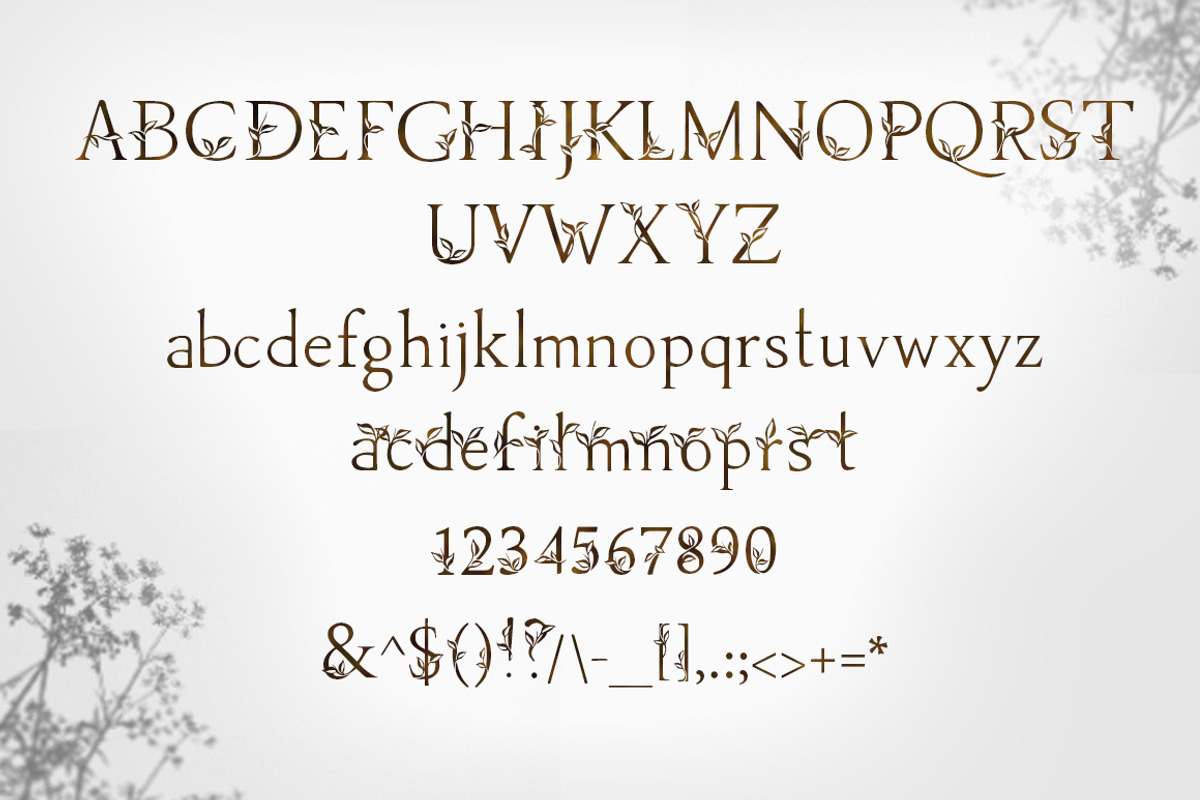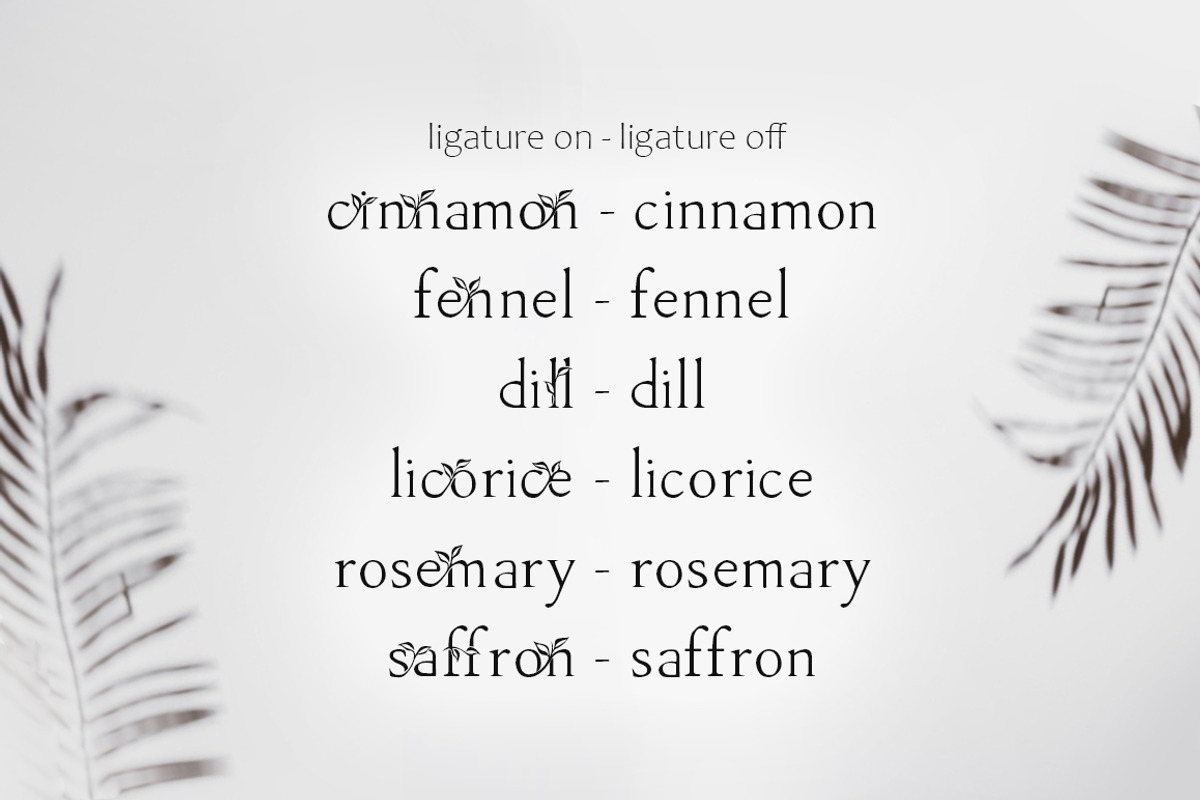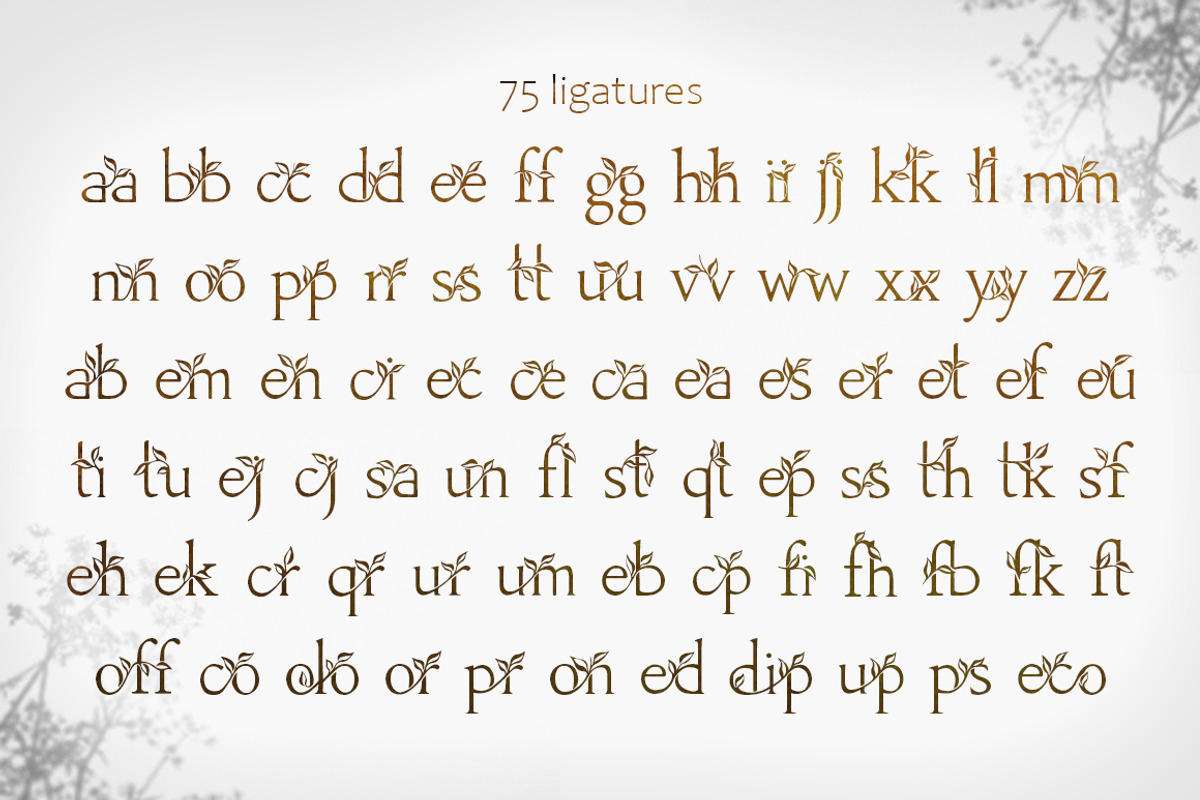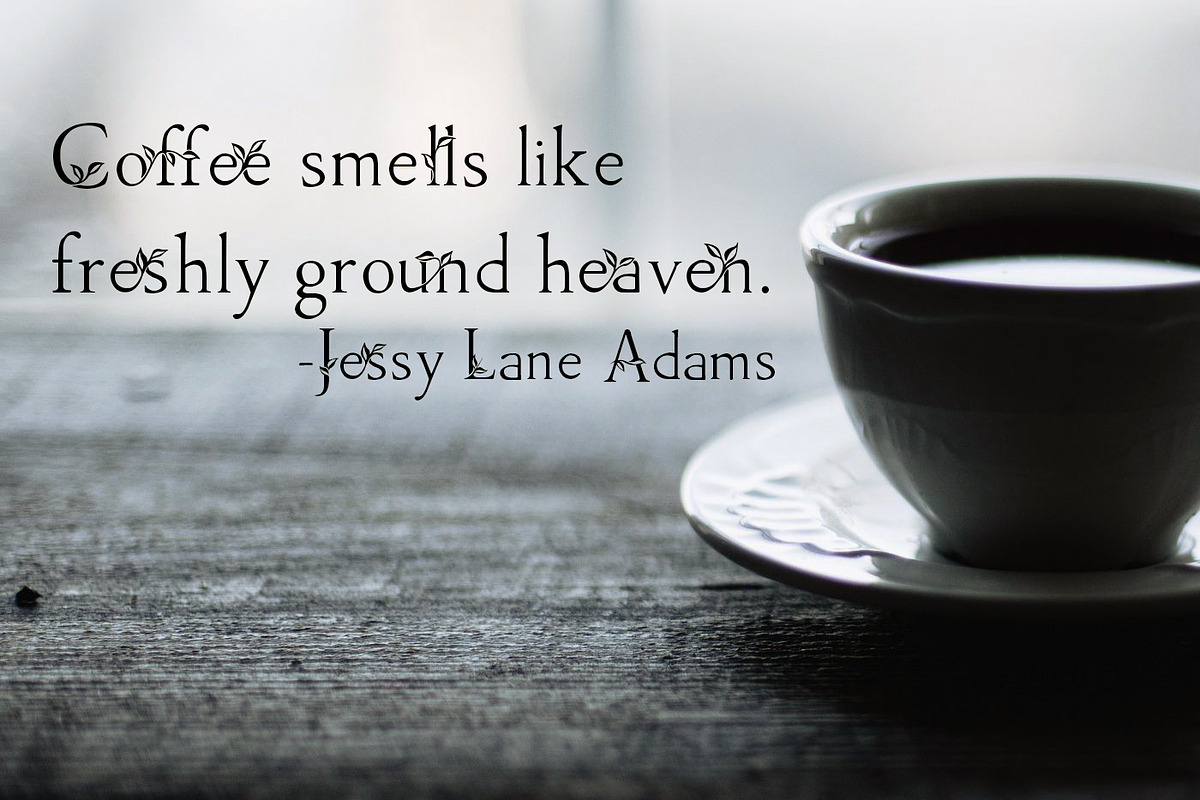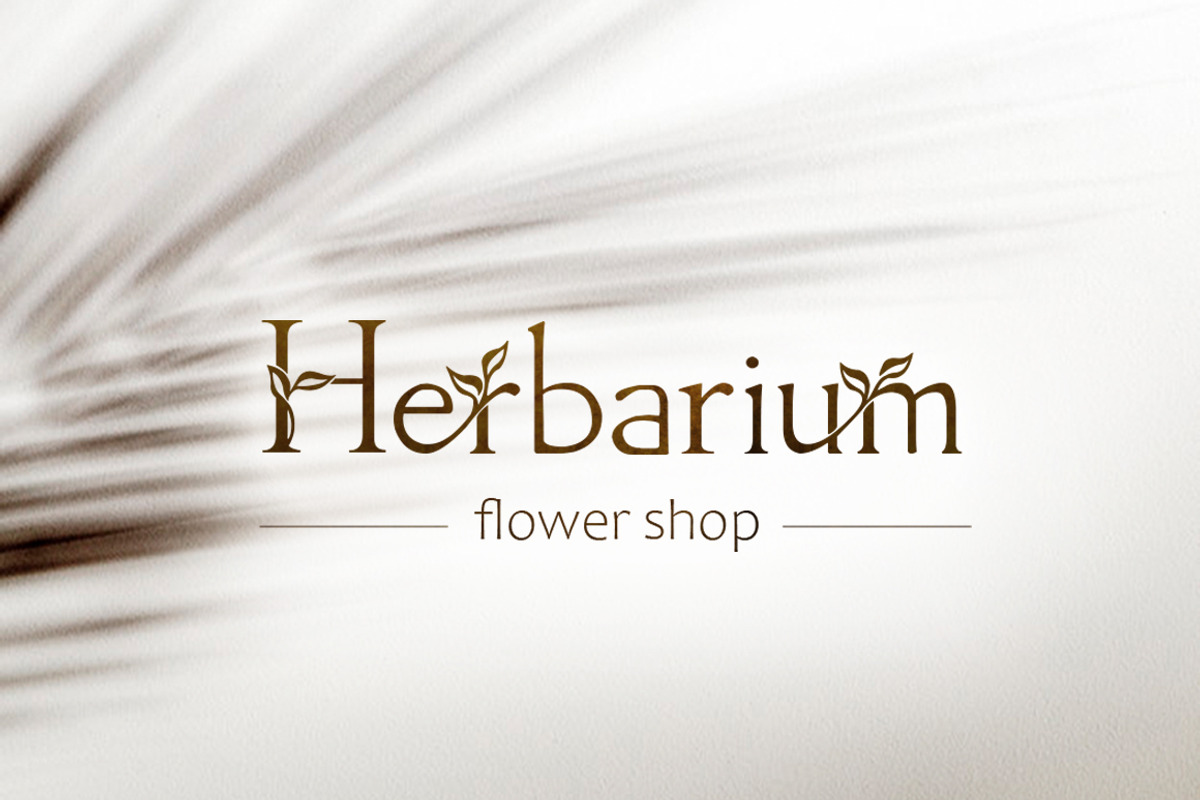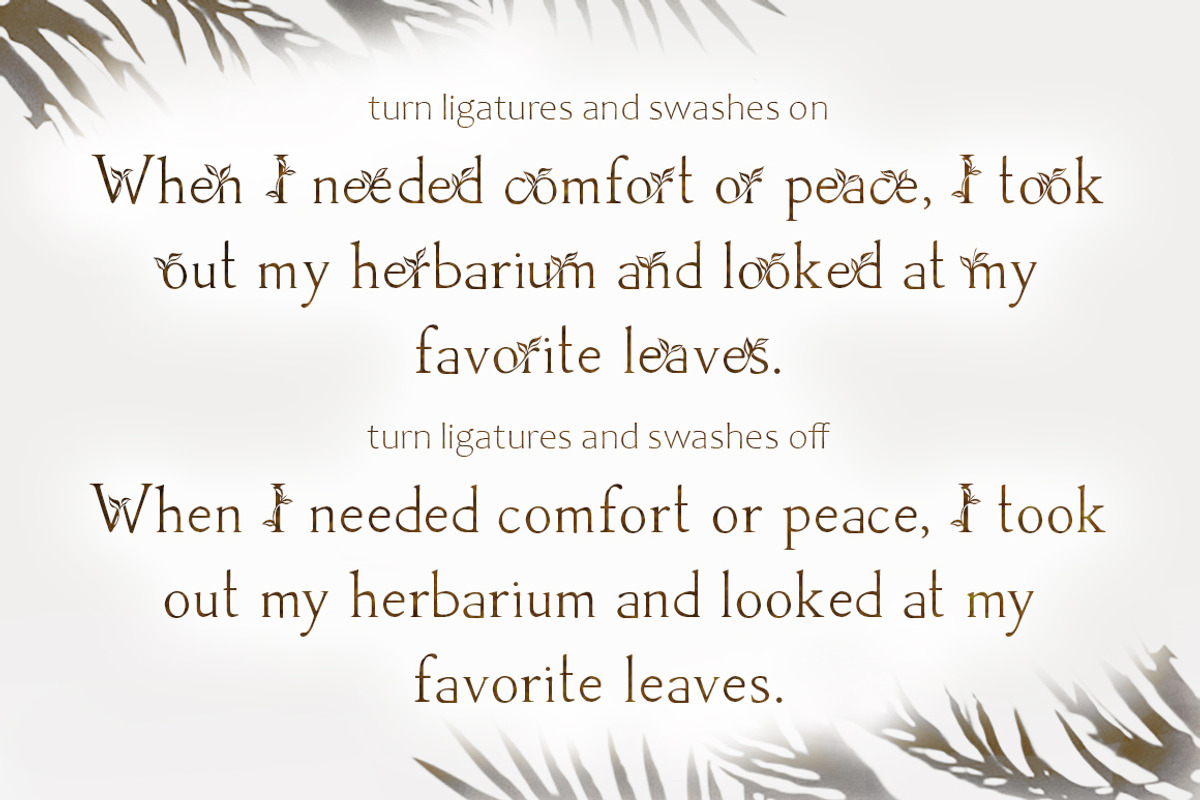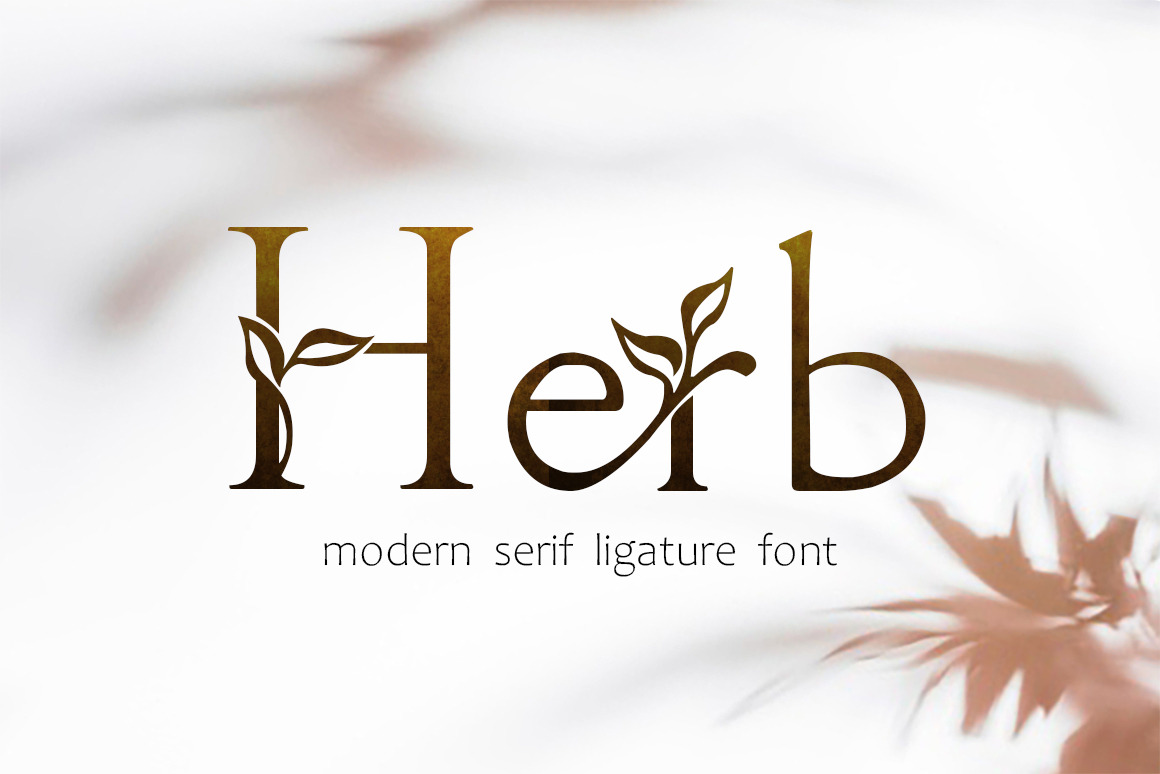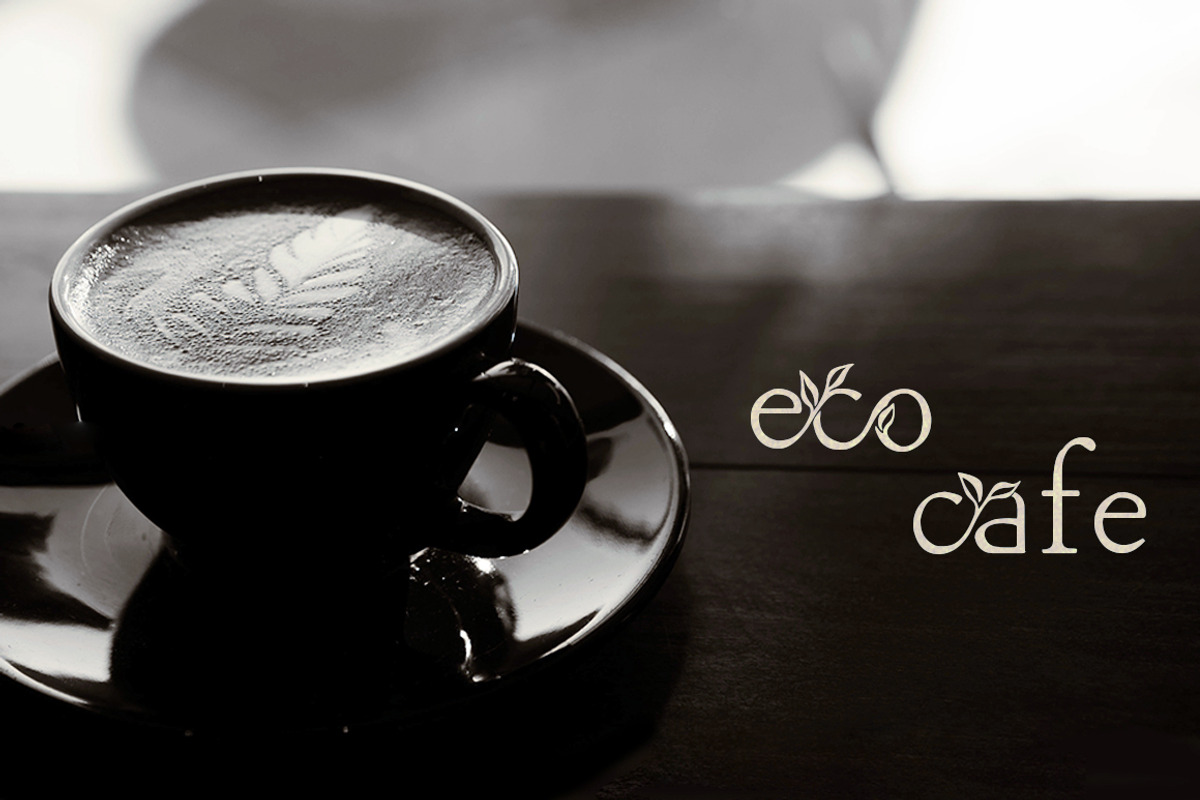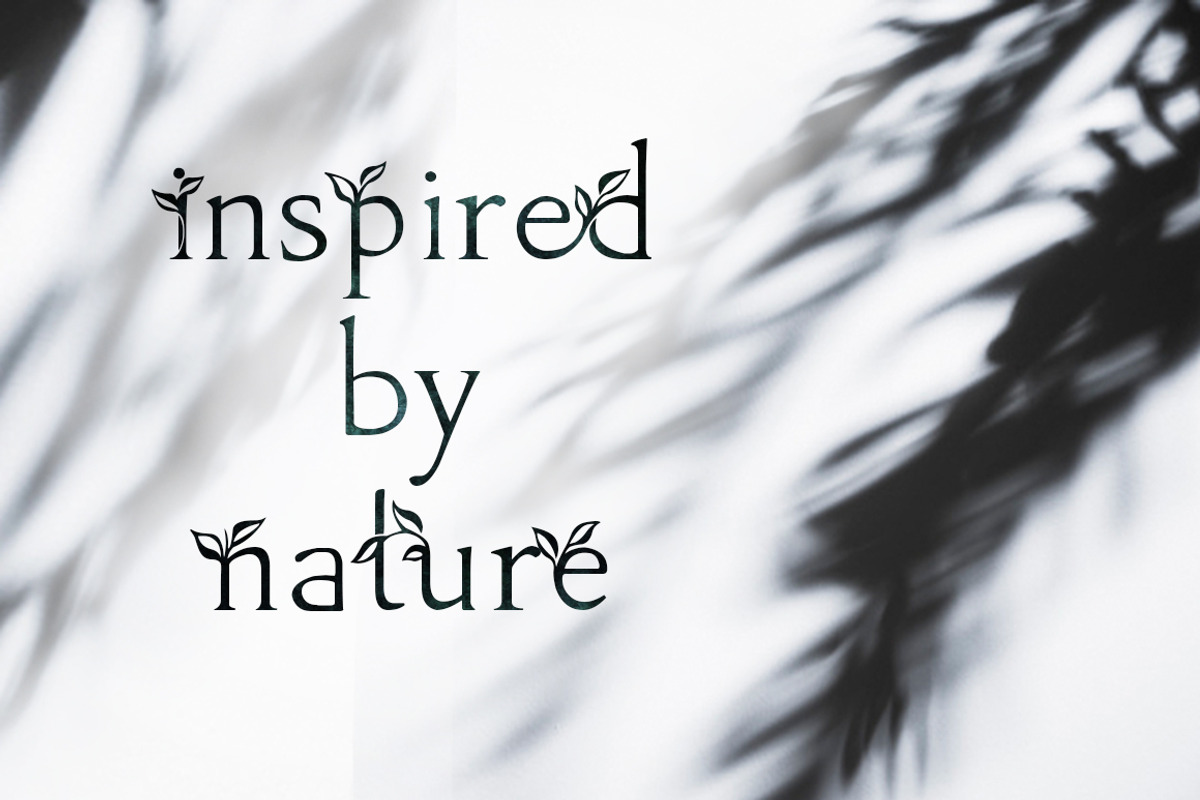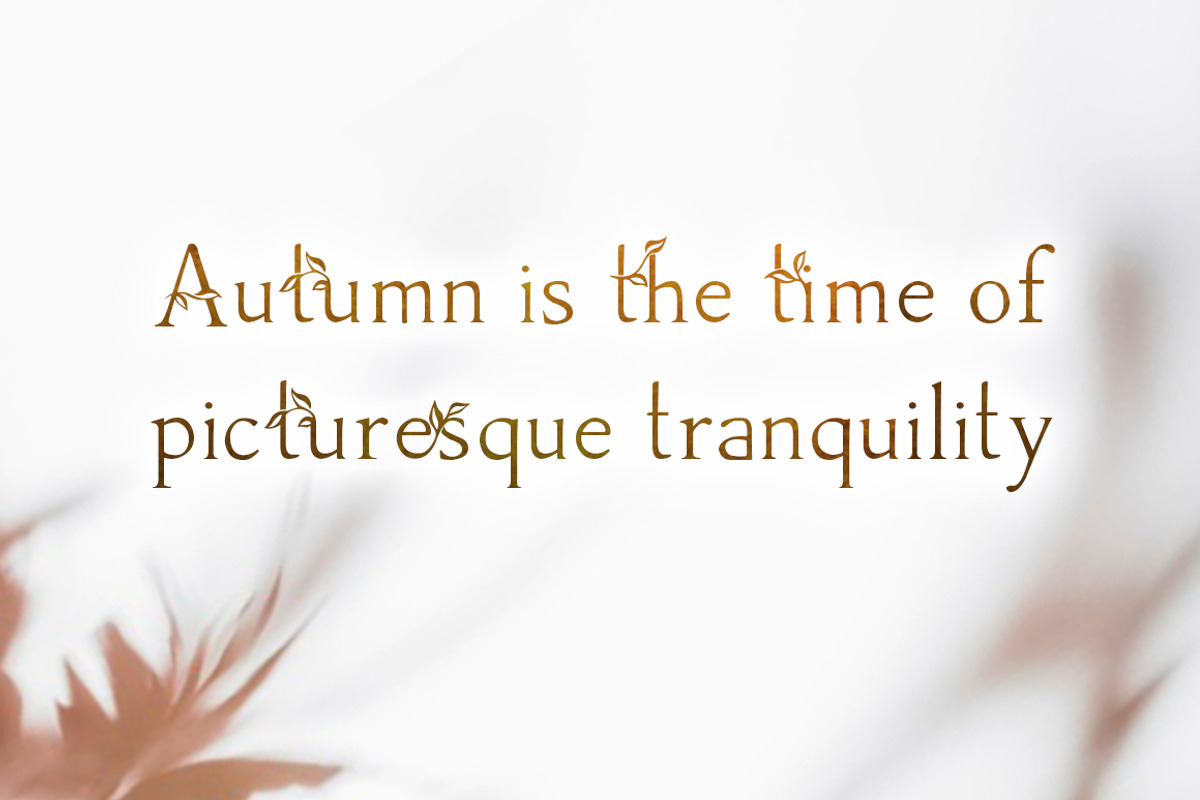
Herb - floral ligature font
The Herb - is a unique ligature serif font inspired by nature and autumn mood. It is perfect for logos (especially to word-mark logos), branding, invitation card, and much more; and well to emphasize your unique style, eco concept, or something else. 75 ligatures and 14 swashes will help create individual writing, thereby expanding the scope for creative expression.
What's about details and features?
- Letters A-Z, a-z, 0-9 and punctuation (all in preview);
- 75 unique ligatures;
- 14 swashes of lowercase glyphs;